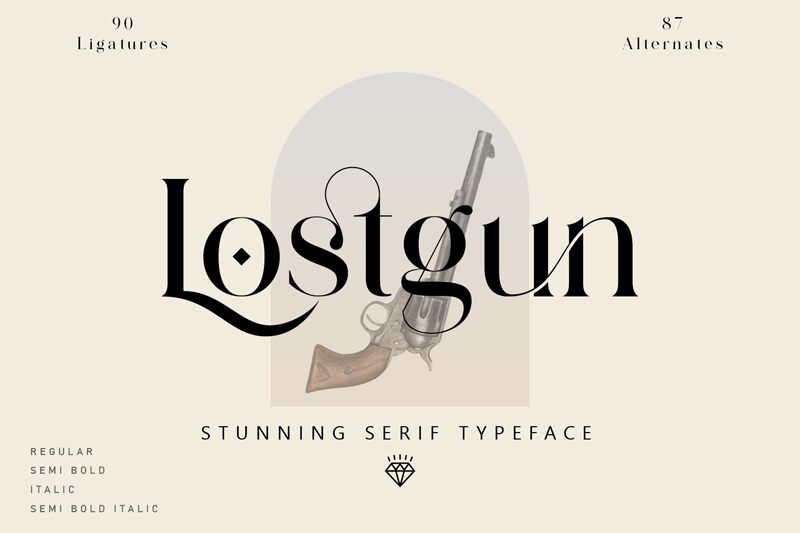
Lostgun, the semi-light serif font designed by Qaratype, brings a touch of elegance and refinement to any project. Its slender strokes and delicate curves create a sense of sophistication that makes it perfect for high-end branding, fashion magazines, or luxury product packaging. With its timeless and classic style, Lostgun is also an excellent choice for wedding invitations, formal announcements or any project that requires an elegant and refined touch. Whether you're designing a logo or creating a book cover, Lostgun's versatile nature allows it to adapt to any project while still maintaining its unique charm.